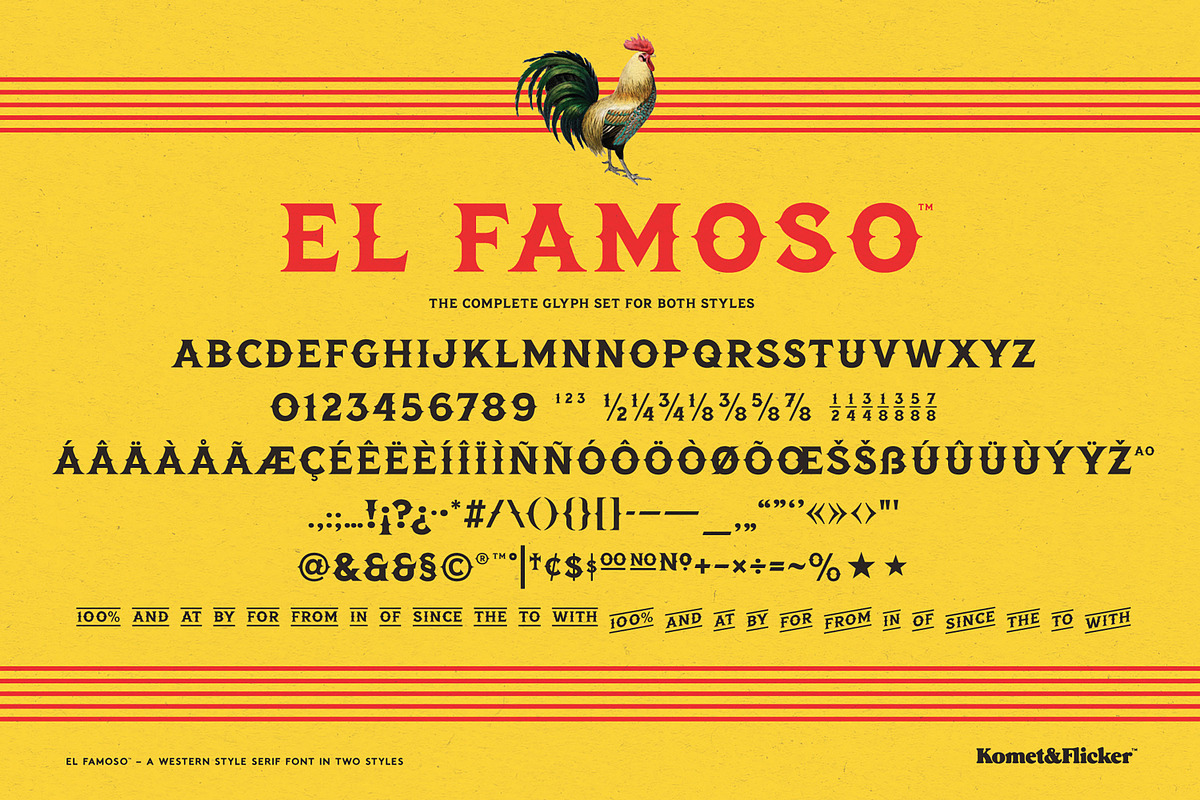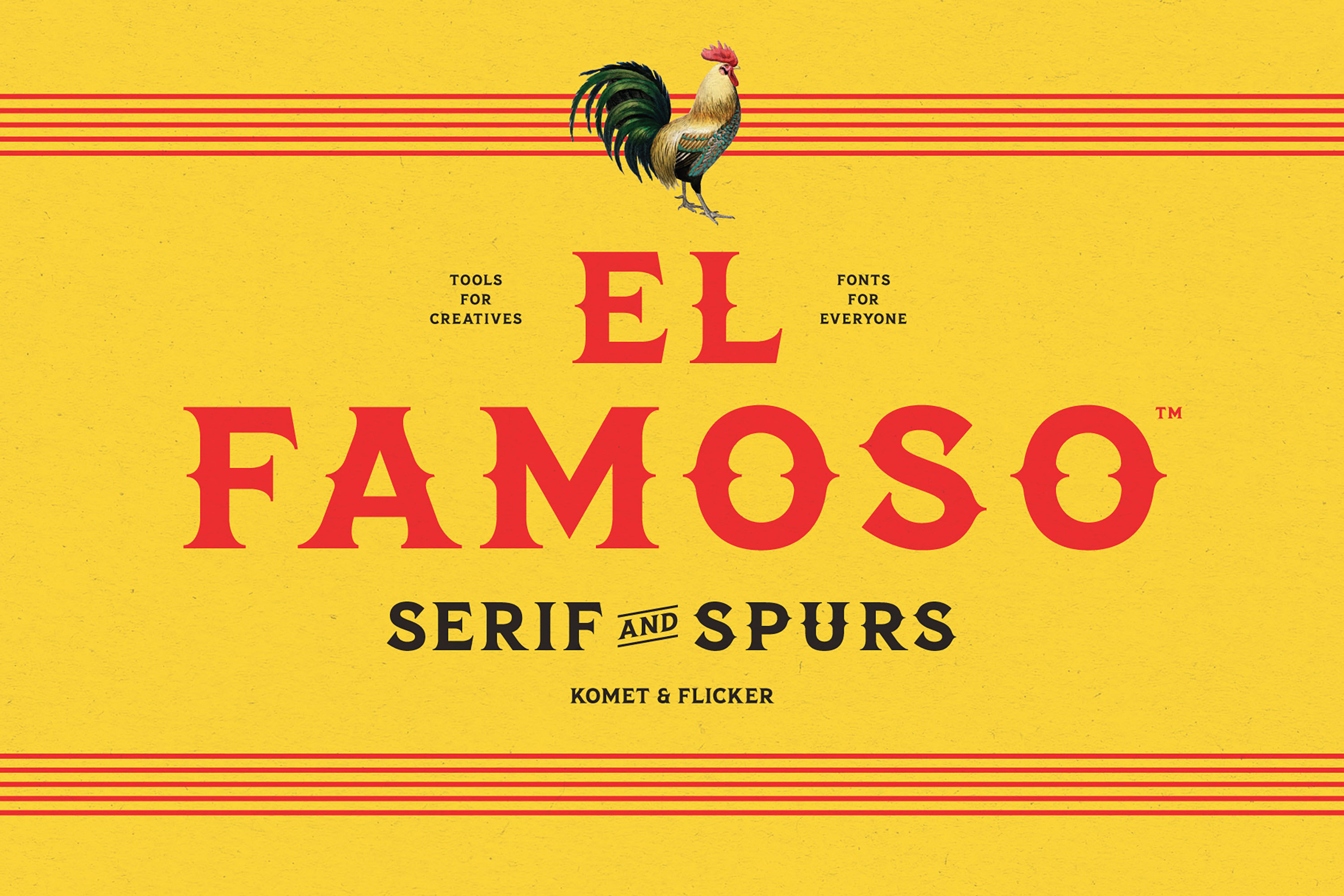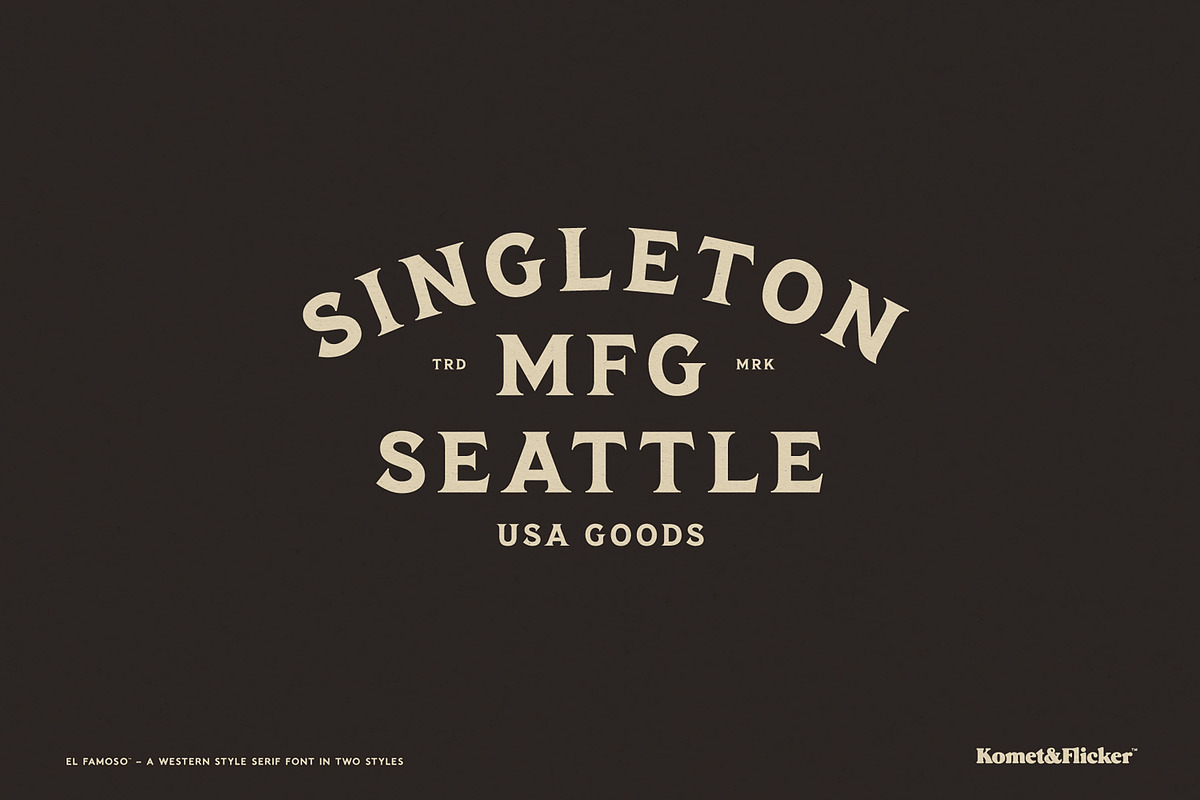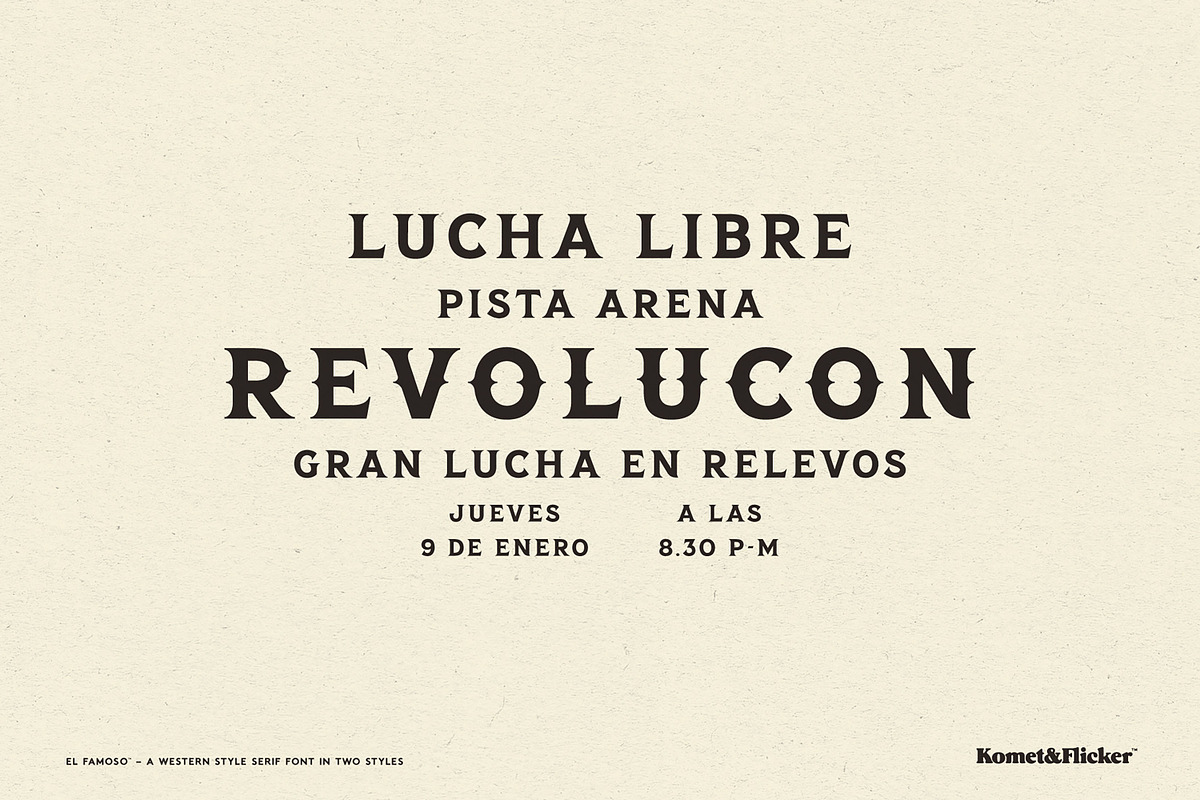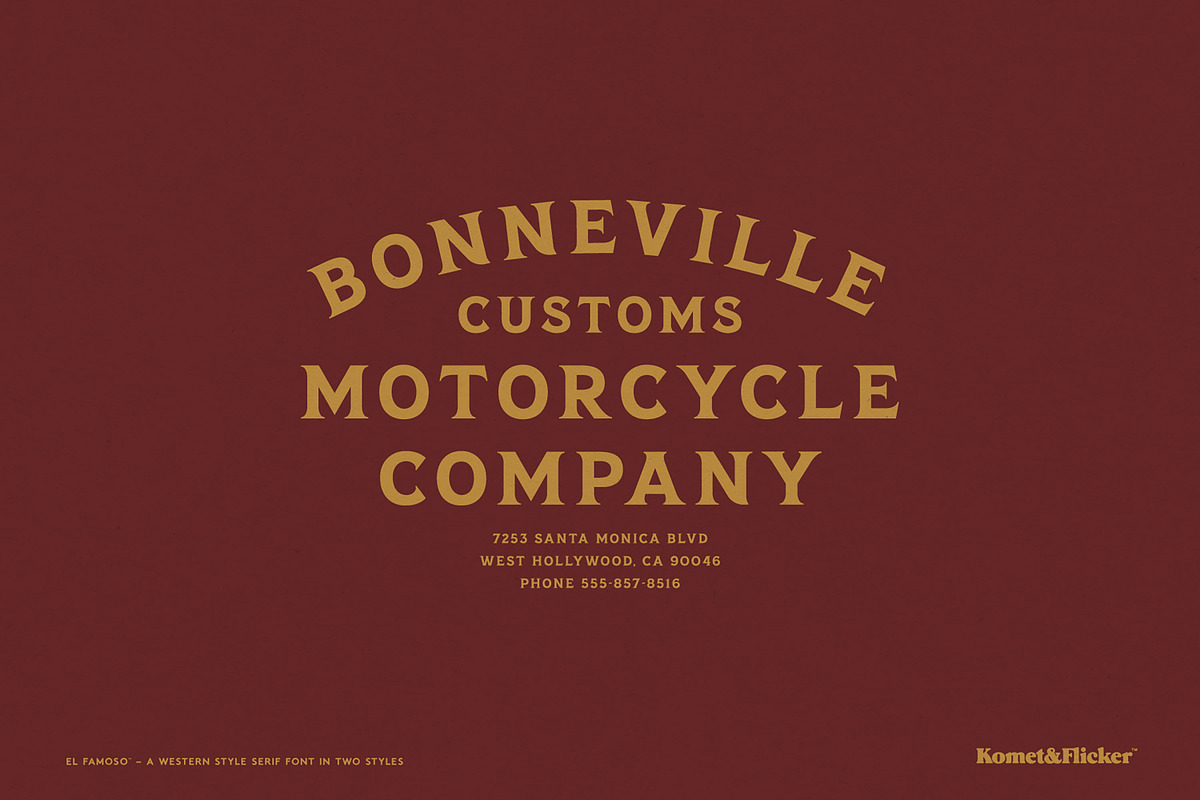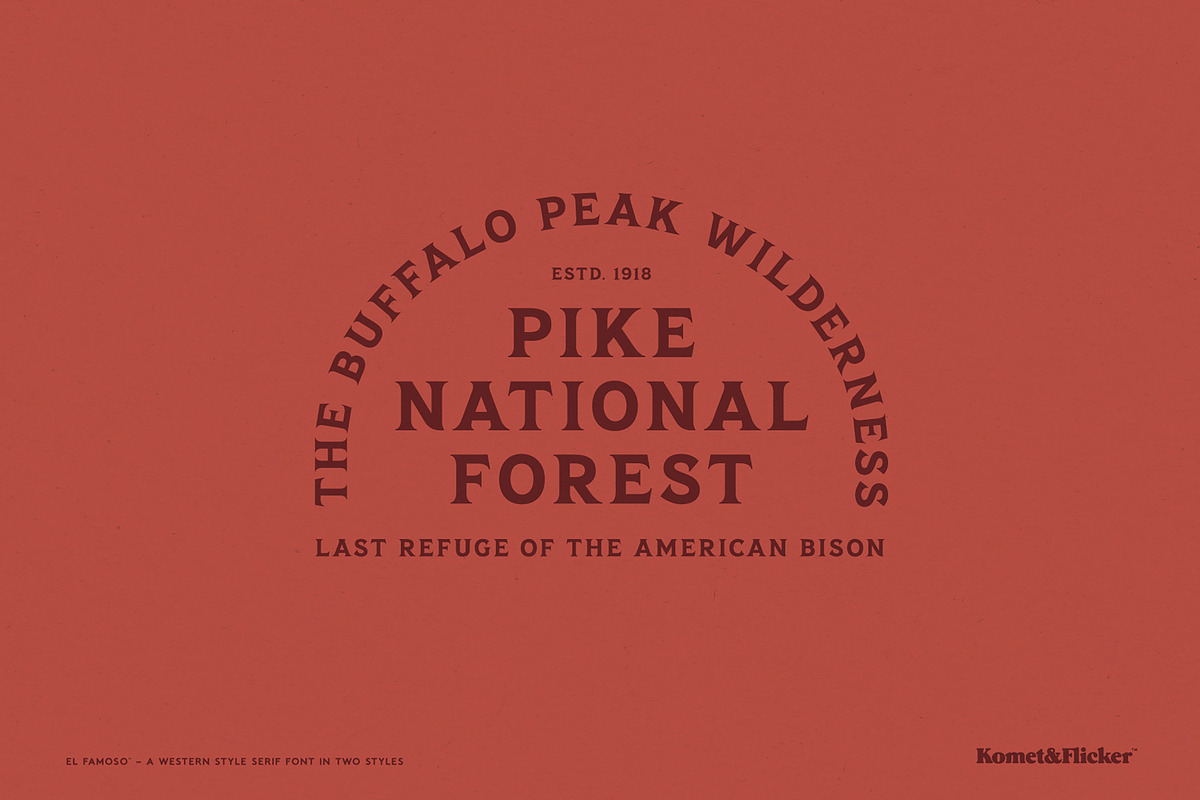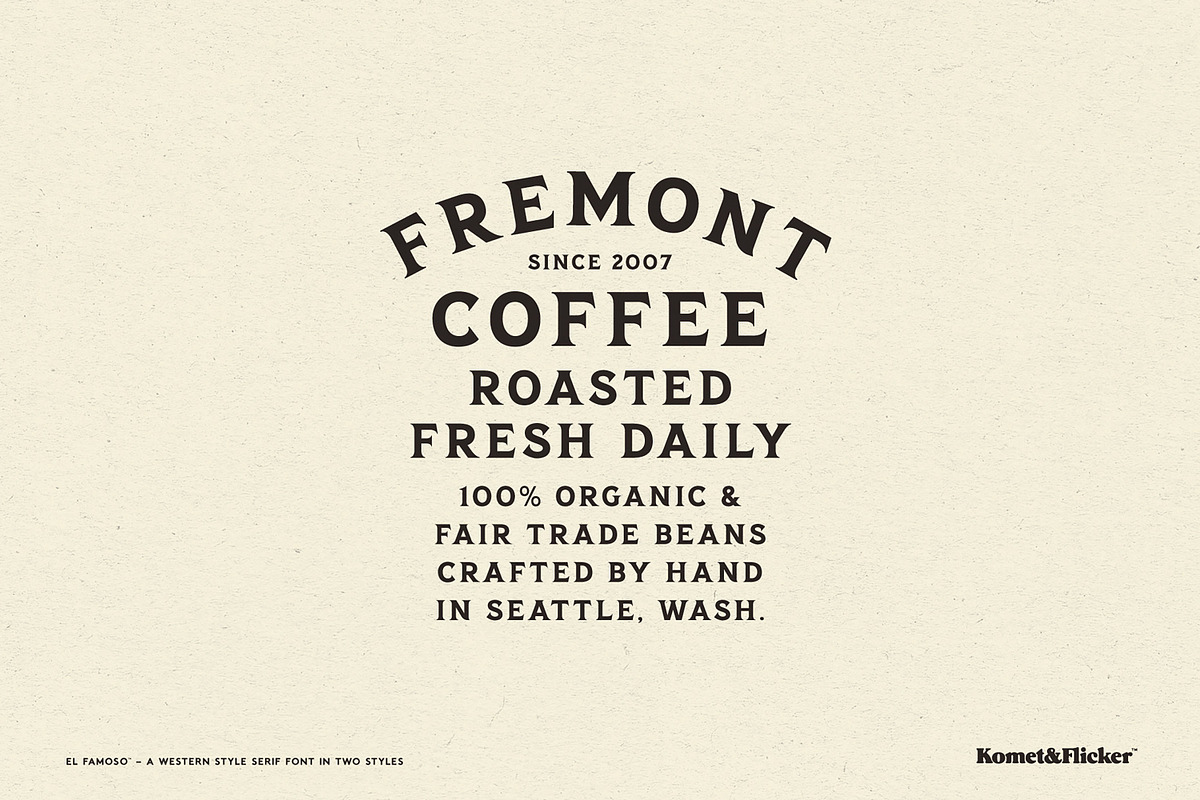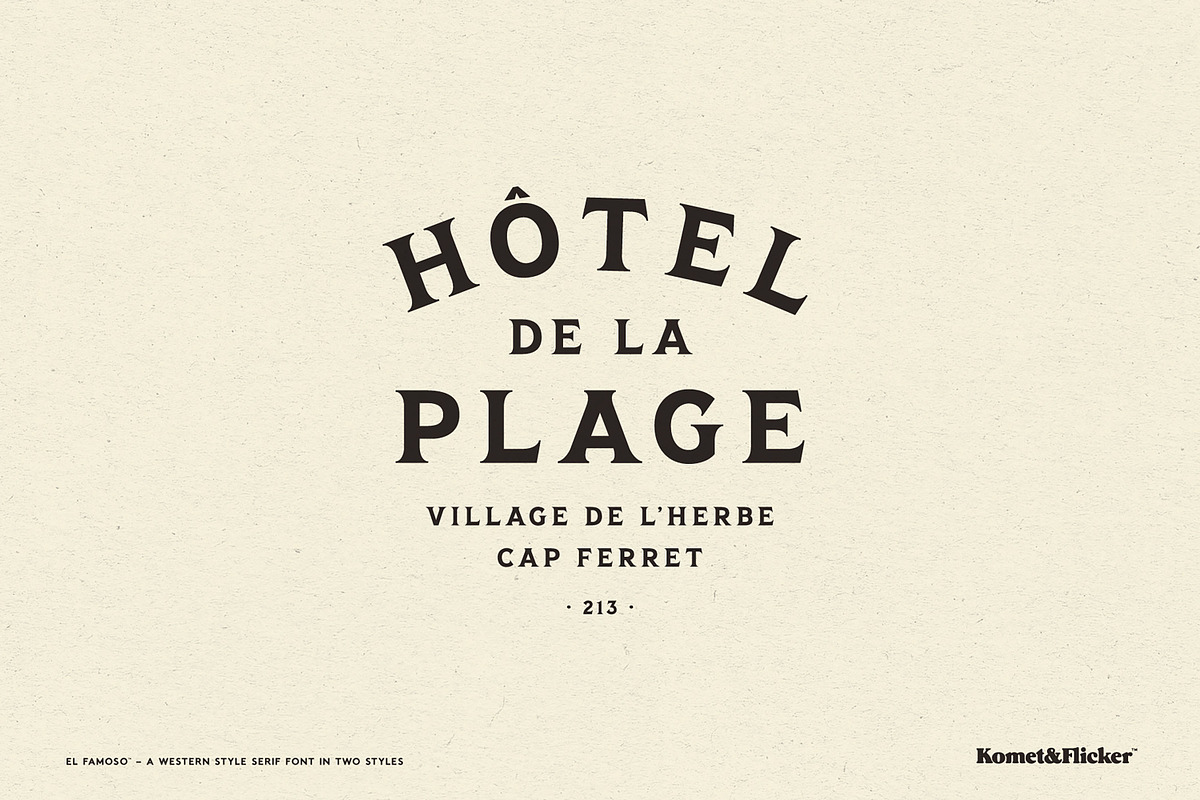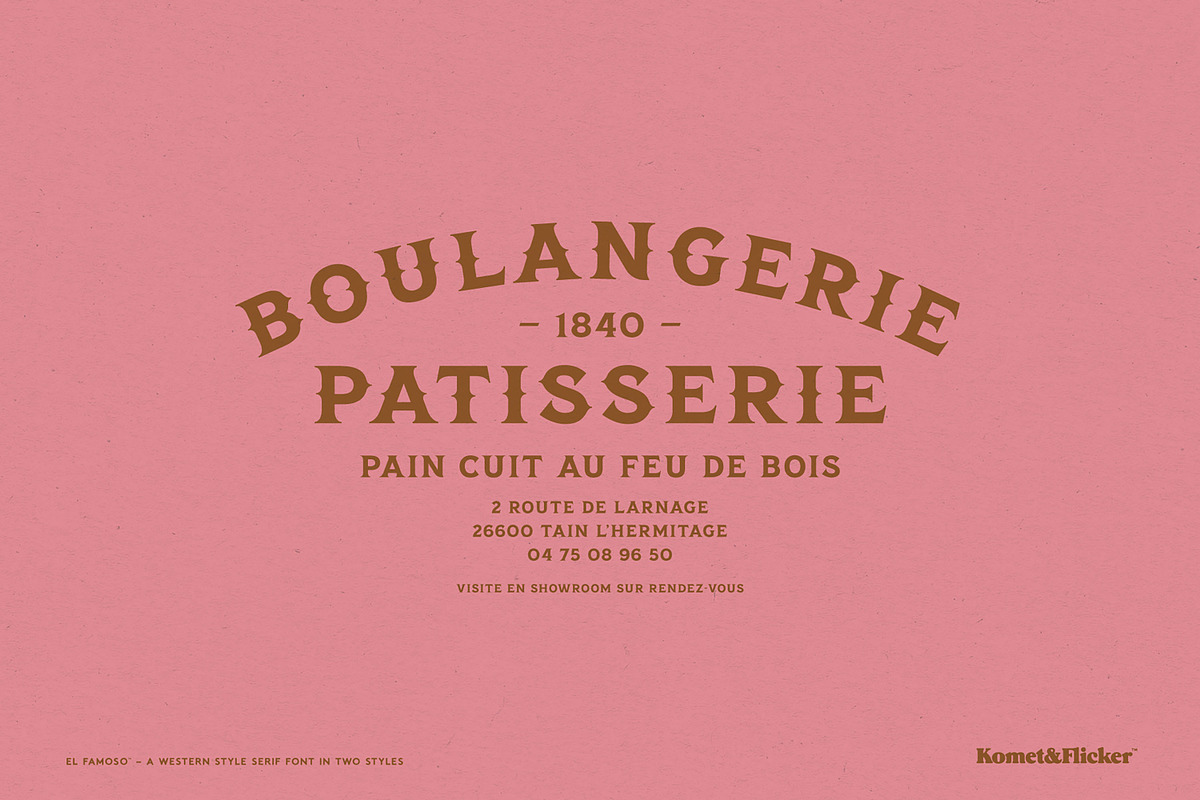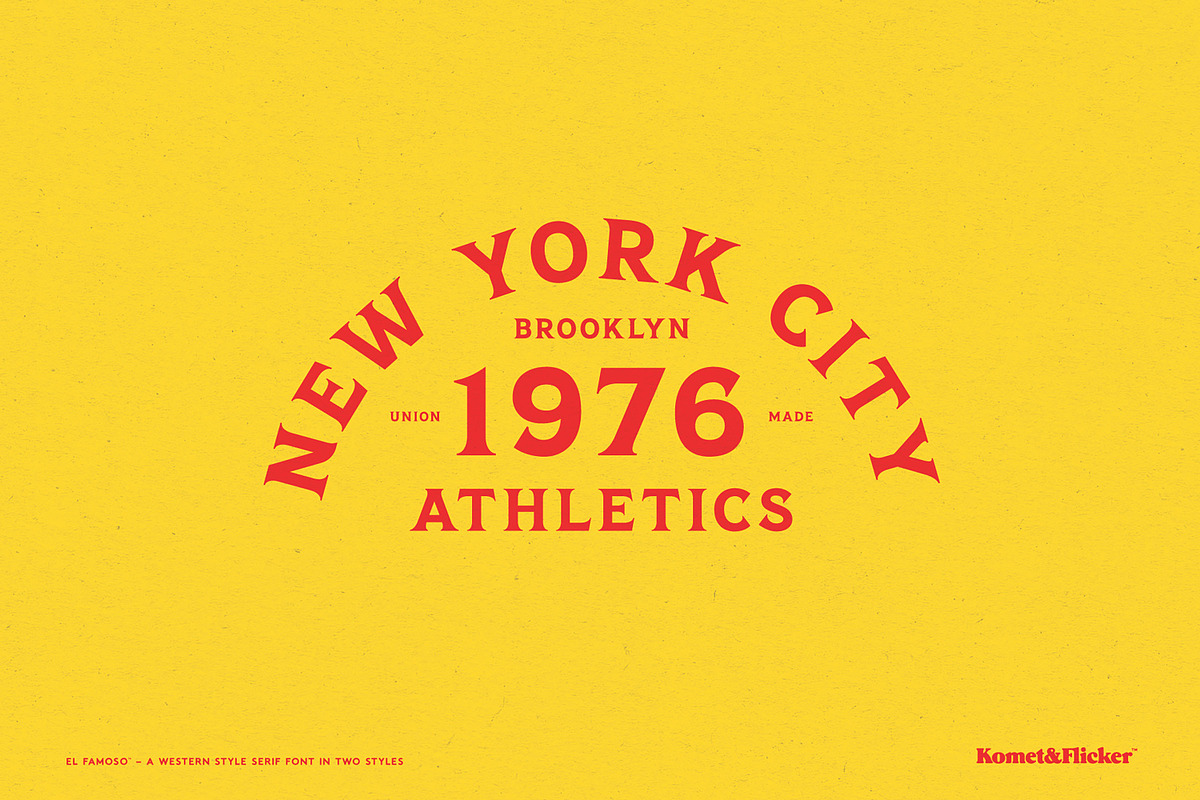
El Famoso - A Western Style Font
El Famoso is an all-caps western style font that brings the warmth and character of south-of-the-border lettering to your designs. Inspired by the vibrant typography found on Latin American shopfronts and street markets, El Famoso captures an authentic, everyday charm that feels familiar and full of personality.
This font family comes in two complementary styles – serif and serif spur – giving you the flexibility to mix and match styles depending on your communication needs. Its casual, approachable feel makes it perfect for branding, packaging, posters, menus, and any design that benefits from a human touch. La Famosa also includes a set of 12 custom connecting words, such as and, the, and with, supplied in two styles to seamlessly link phrases and add extra character to your layouts.
Friendly, expressive, and rooted in tradition, El Famoso is made to stand out while staying effortlessly readable.
THIS FONT INCLUDES
Full A-Z uppercase basic latin characters
Select European specific characters
Numbers, punctuation, and select symbols
Pre-made fractions in two styles
Set of 12 custom connecting word glyphs in two styles
Alternate glyphs for N, S, &, $
Set of 10 Mexican folk art inspired dingbats